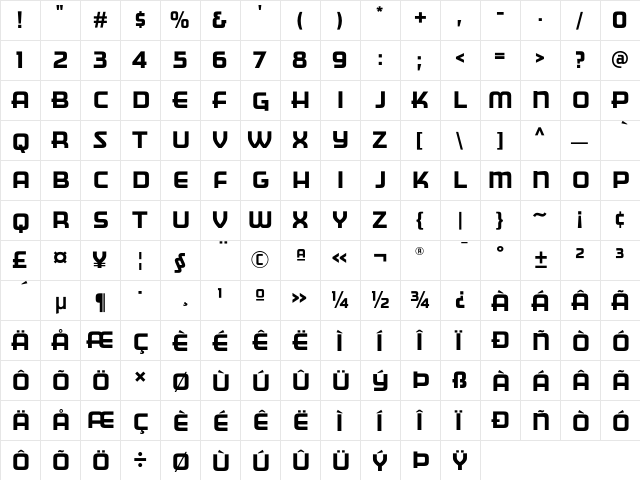
Motel-Gothic Regular
Design Context for Motel-Gothic Typeface
Motel-Gothic has the quiet confidence of well-executed sans-serif typography: versatile, unobtrusive, and dependable at any size.
Font Pairing: Works well alongside a characterful serif or display font that can carry the expressive load while Motel-Gothic handles the functional copy.
Pro Tip: Use Motel-Gothic for UI labels, navigation, and short-form body copy where clean legibility is the priority.